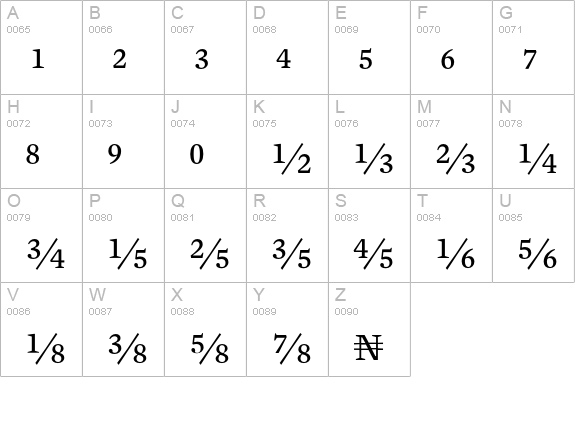
Mercury Numeric G1 Roman Font Details
Mercury Numeric G1 Roman font is a classic and elegant typeface that exudes sophistication and style. With its clean lines and timeless design, this font is perfect for adding a touch of refinement to any project. The versatile nature of Mercury Numeric G1 Roman makes it suitable for a wide range of applications, from branding to editorial design. What's even better is that Mercury Numeric G1 Roman font is available for free download at FontsMarket.com. Simply head over to the website and start using this beautiful font in your projects today. Don't miss out on this opportunity to enhance your designs with this high-quality typeface that is both stylish and easy to read.